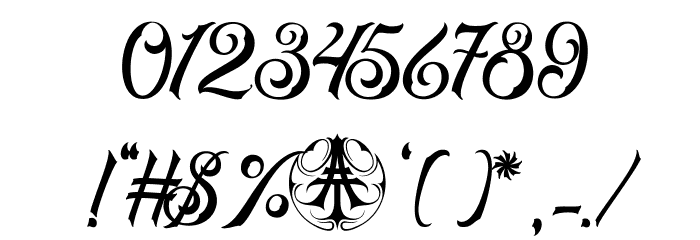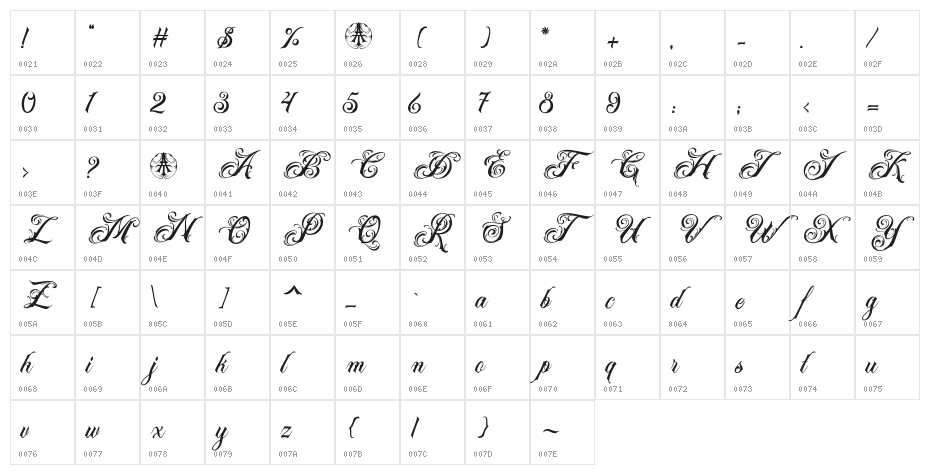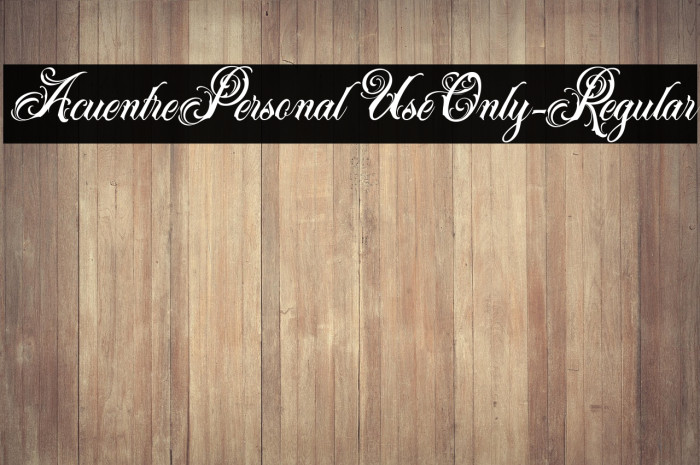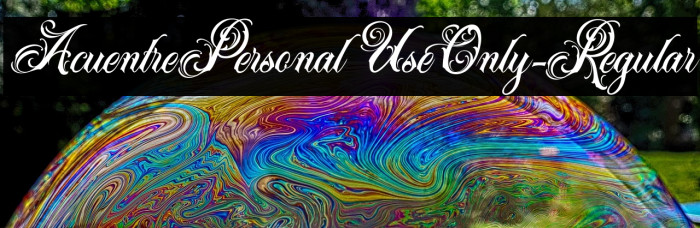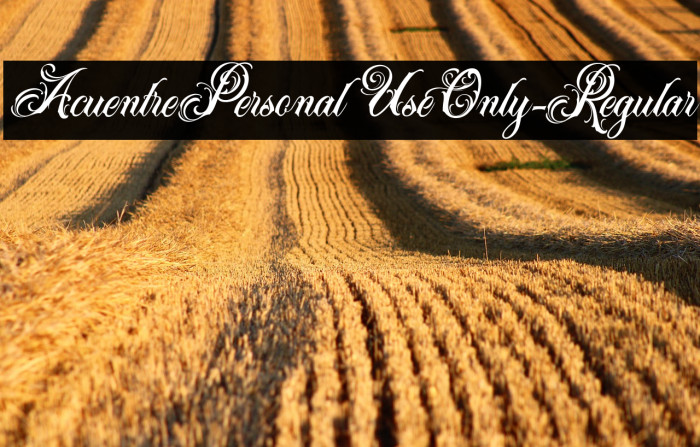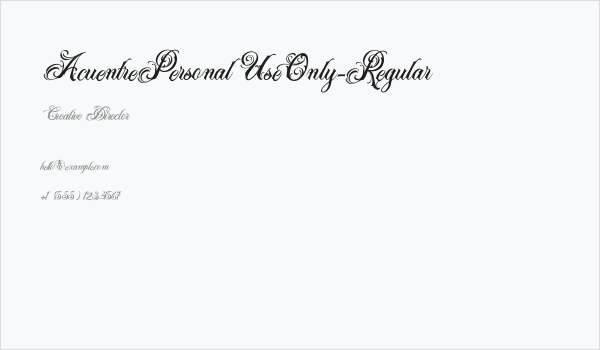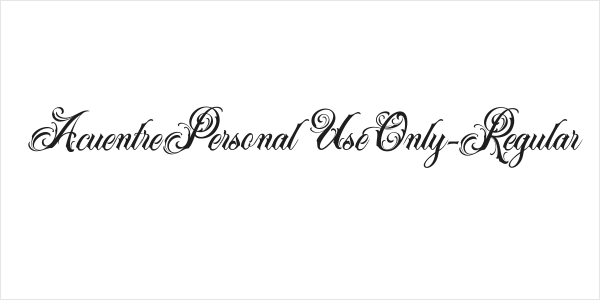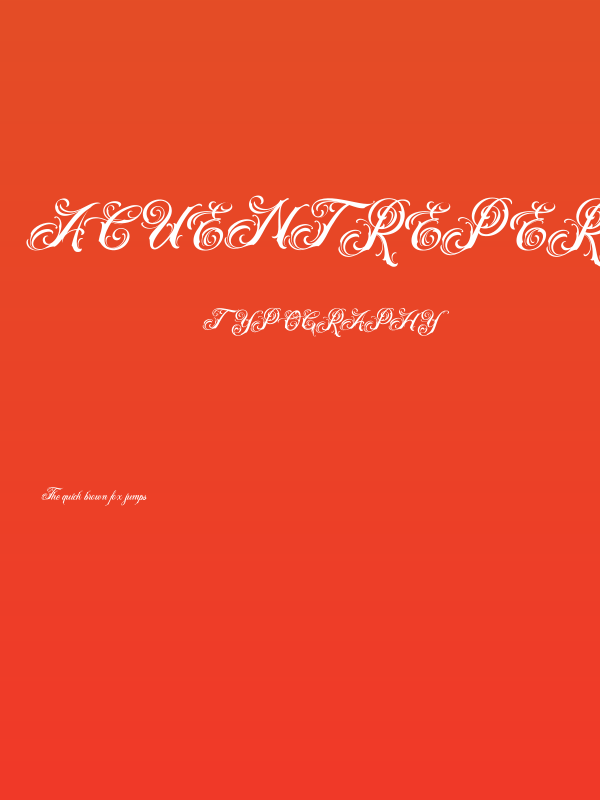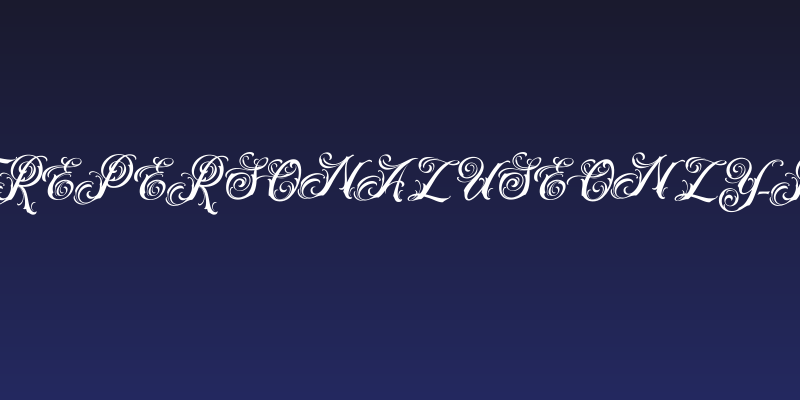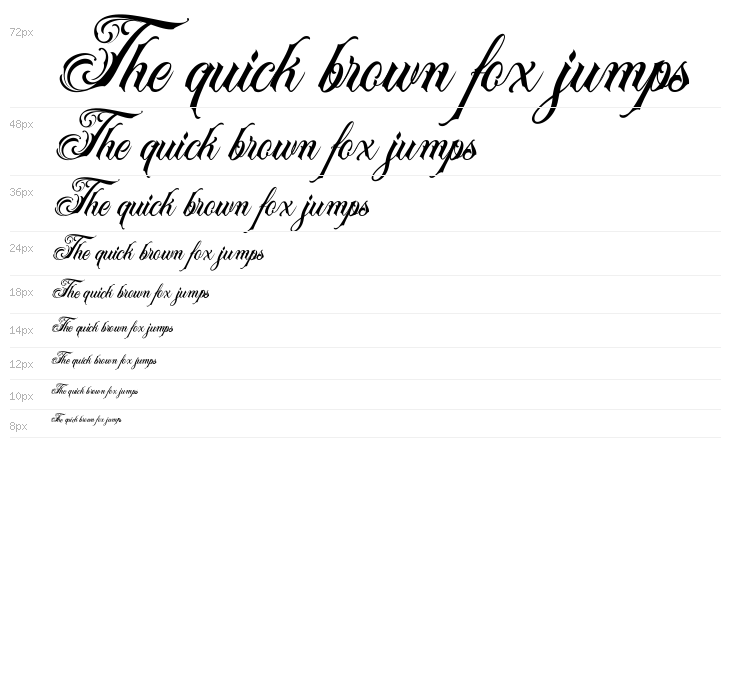
AcuentrePersonalUseOnly-Regular Font
AcuentrePersonalUseOnly-Regular Description
This font exhibits an ornate and decorative style, characterized by intricate swirls and flourishes that embellish each letter. The uppercase letters are particularly elaborate, with each character featuring unique embellishments that give it a regal and sophisticated appearance. The lowercase letters maintain a cursive and flowing style, providing a harmonious balance between elegance and readability. The numerals are bold and distinct, matching the decorative theme of the alphabet. Special characters are equally ornate, making this font ideal for projects that require a touch of luxury and sophistication.
| Proposed Projects | Ideal for wedding invitations, luxury branding, high-end product packaging, and decorative headings. |